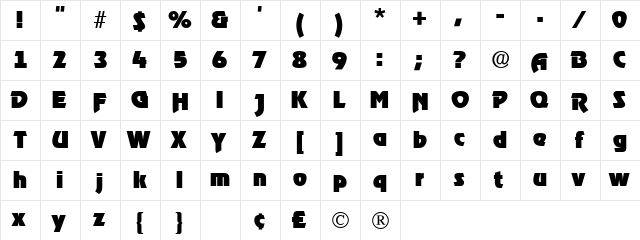
Thimba Display SSi Regular
Design Context for Thimba Display SSi Typeface
Thimba Display SSi brings ornamental detail and strong personality to headlines and identities, where visual impact matters more than quiet functionality.
Font Pairing: Pair with a clean neutral sans-serif for body copy to let Thimba Display SSi's character lead without overwhelming the composition.
Pro Tip: Treat Thimba Display SSi as the centrepiece of your typographic hierarchy. One strong heading set in a decorative face can carry an entire layout.